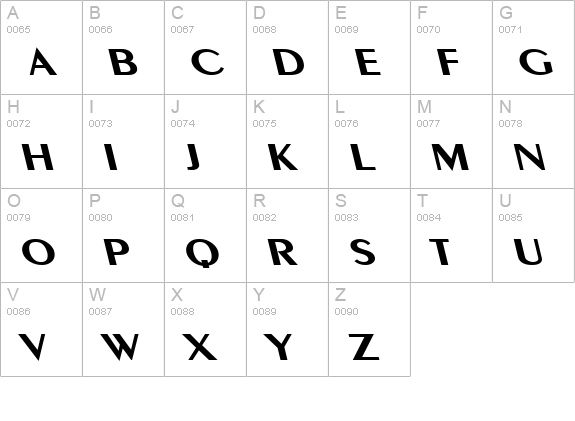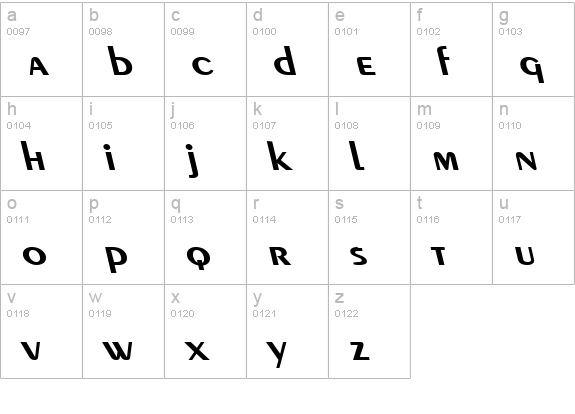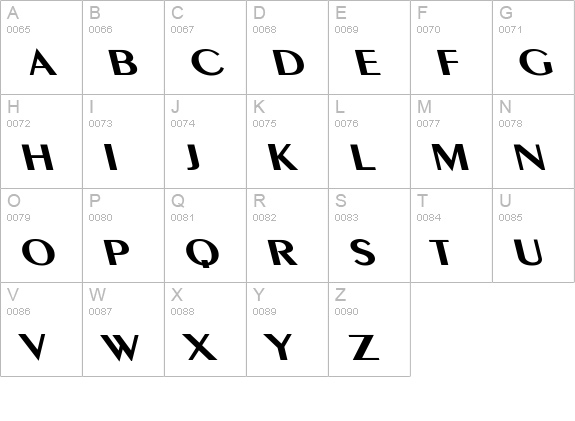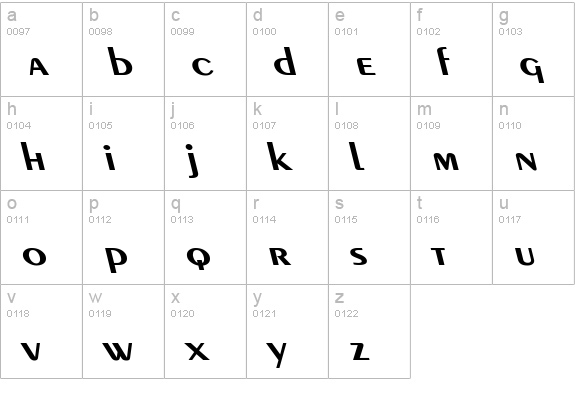
Pare Wide Reverse BoldItalic is a distinctive, extended-width variant in the Pare typeface family \xE2\x80\x94 well suited to design and typography projects.
Introducing the stunning and effortlessly stylish Pare Wide Reverse BoldItalic font. This font is a true masterpiece, designed to captivate and inspire with its unique blend of boldness and elegance. With its sleek and modern appearance, Pare Wide Reverse BoldItalic is perfect for adding a touch of sophistication to any project. This remarkable font is the epitome of versatility, allowing you to express your creativity in a multitude of ways. Whether you're designing a logo, creating eye-catching headlines, or crafting a visually appealing website, Pare Wide Reverse BoldItalic will effortlessly elevate your work to new heights. What sets this font apart is its impeccable balance between boldness and delicacy. Each letter possesses a distinctive flair, combining bold, wide strokes with a hint of italicized finesse. This harmonious fusion creates a visually striking and unforgettable aesthetic that will leave a lasting impression on your audience. And the best part? Pare Wide Reverse BoldItalic is completely free! Yes, you read that right. This exceptional font can be freely downloaded at FontsMarket.com, allowing you to enhance your designs without breaking the bank. Now, you can access high-quality typography without compromising on style or budget. So, why wait? Transform your creative projects and make a statement with Pare Wide Reverse BoldItalic. Download it for free at FontsMarket.com and let your imagination soar.